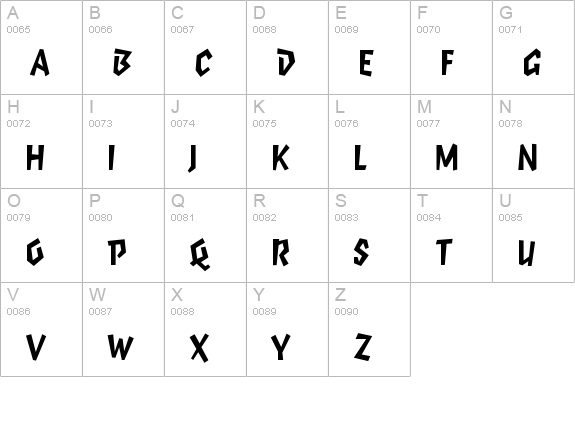
ElektrixBoldOldstyle Bold is a strong, high-contrast variant in the ElektrixBoldOldstyle typeface family \xE2\x80\x94 well suited to headlines, attention-grabbing titles, and strong calls-to-action.
ElektrixBoldOldstyle Bold font is a striking and versatile typeface that exudes a sense of confidence and modernity. Its bold weight commands attention and makes a bold statement in any design project. The classic yet contemporary design of this font makes it suitable for a wide range of applications, from branding to editorial design. What sets ElektrixBoldOldstyle Bold font apart is not only its bold and impactful appearance but also its timeless elegance. The precise and intricate details of each letterform showcase the craftsmanship and attention to detail that went into creating this font. And the best part? ElektrixBoldOldstyle Bold font is available for free download at FontsMarket.com. Whether you're a designer looking to add a touch of sophistication to your projects or a business owner seeking a distinctive font for your branding, ElektrixBoldOldstyle Bold font is a versatile choice that will elevate your designs to new heights. Download it today and unleash the power of this impressive typeface in your creative endeavors.